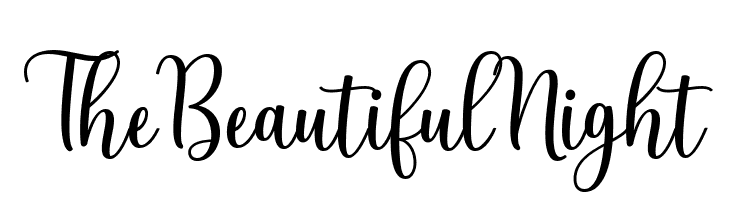
A graceful script font with fluid, connected strokes and elegant curves.
A bold, hand-drawn font with a brush-like texture and expressive style.
A decorative cursive font with elegant loops and swirls.
An elegant, flowing script font with graceful, cursive letterforms.
An elegant and flowing script font with graceful curves and delicate strokes.
A bold, playful handwritten font with a casual and approachable style.
A playful, casual handwritten font with irregular strokes and a whimsical style.
A playful, handwritten font with a casual and organic style.